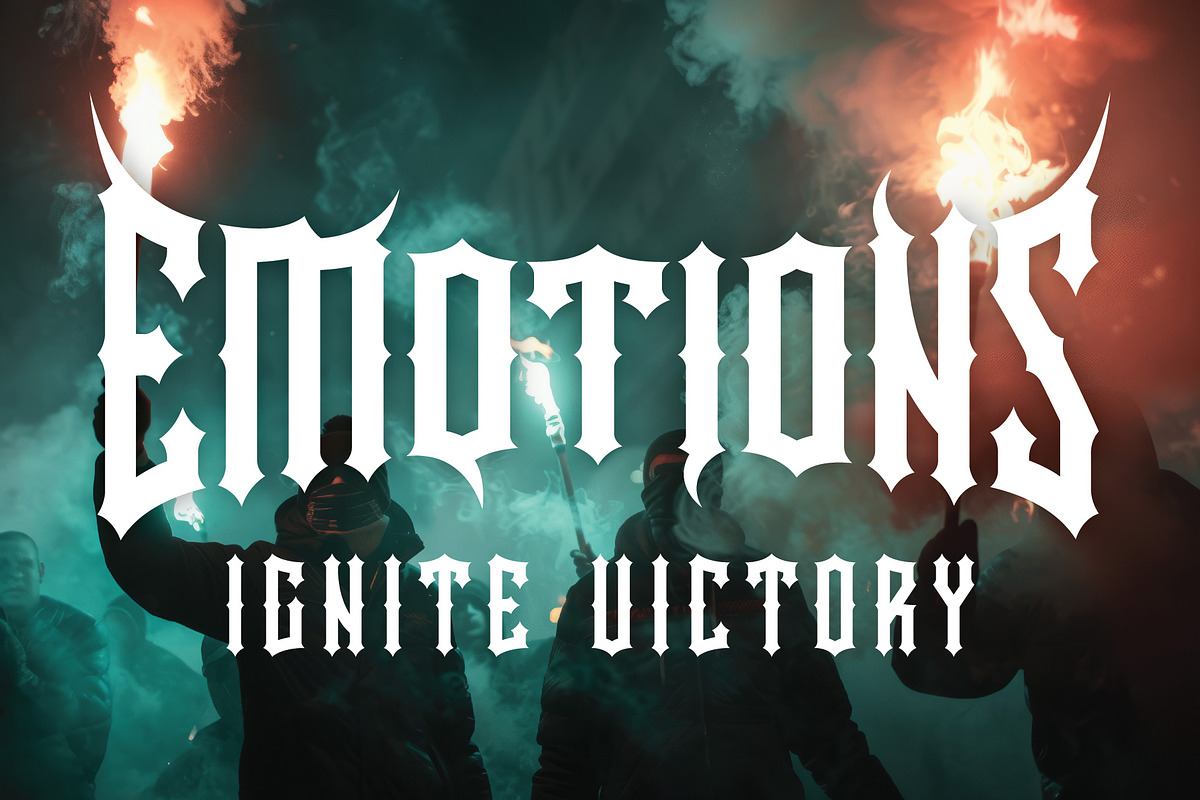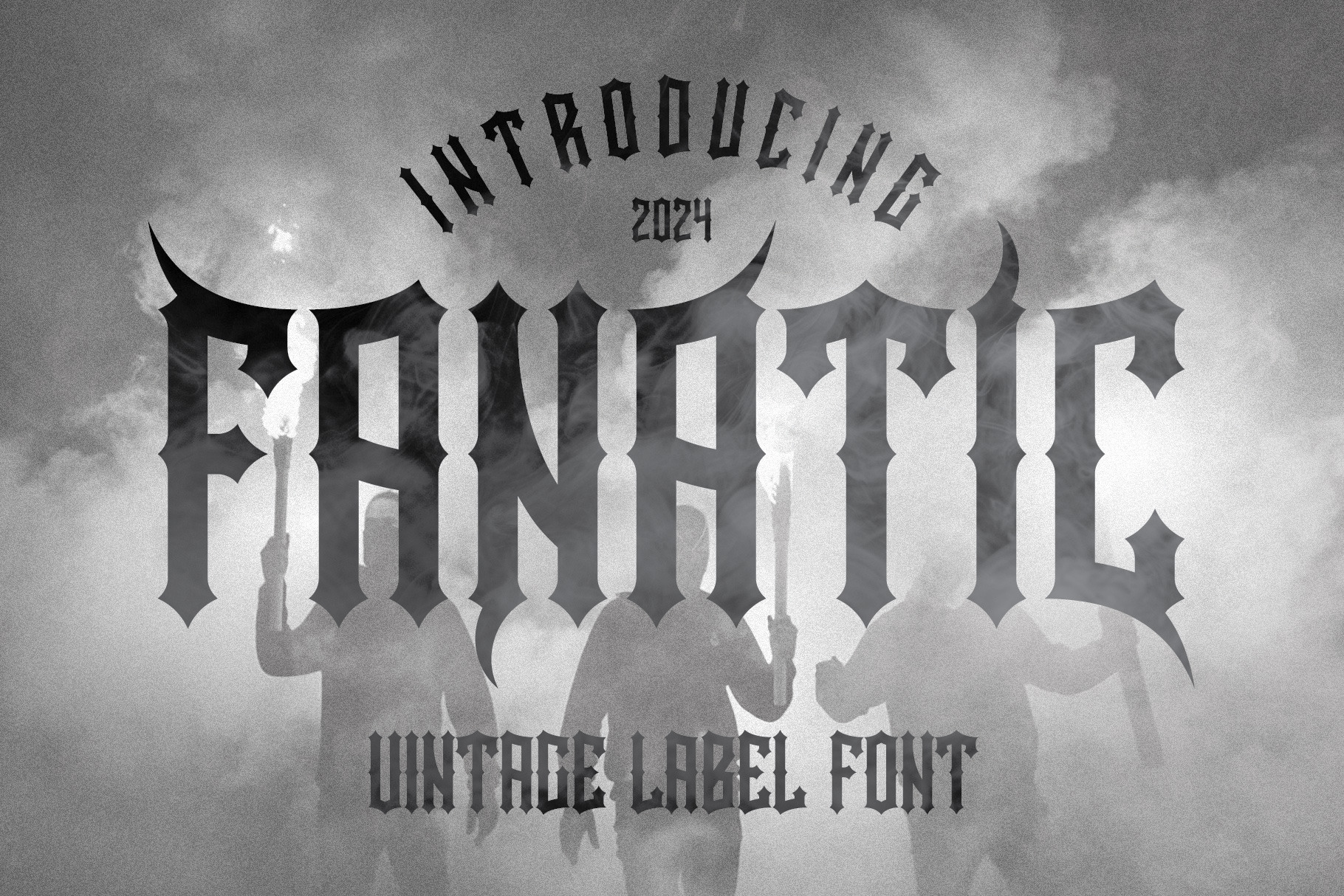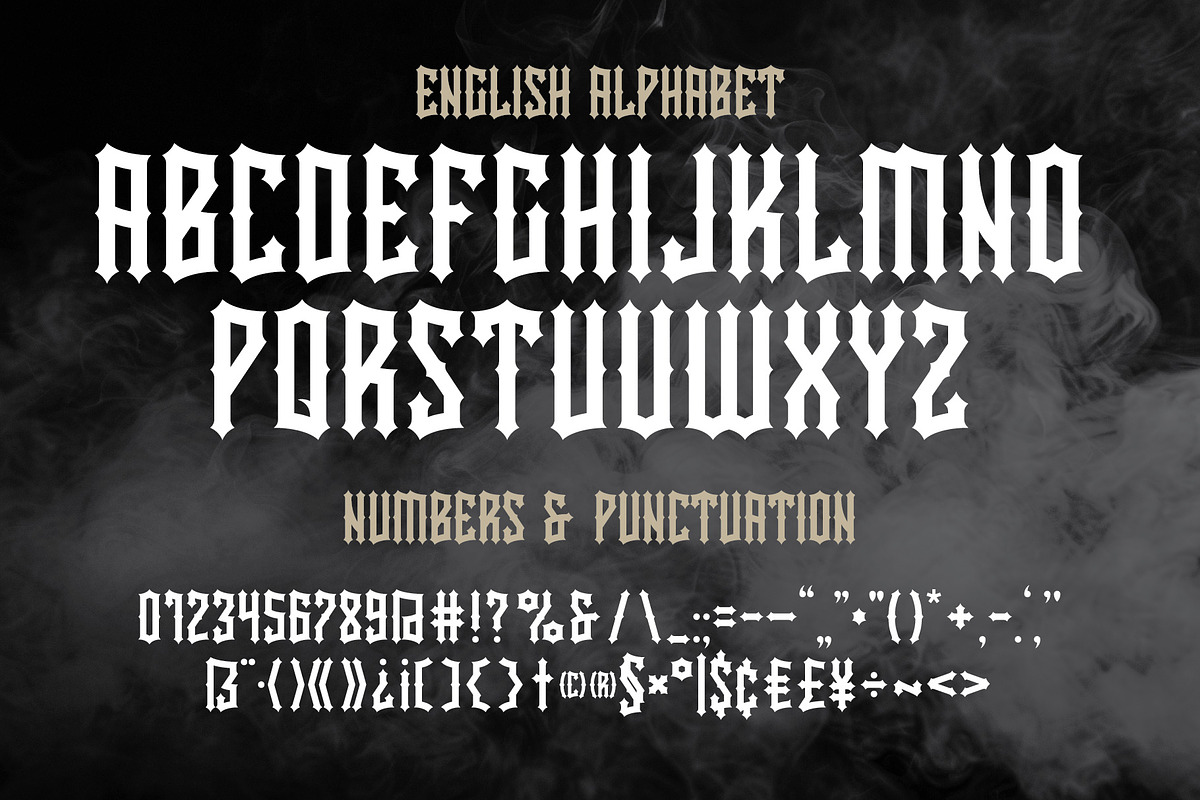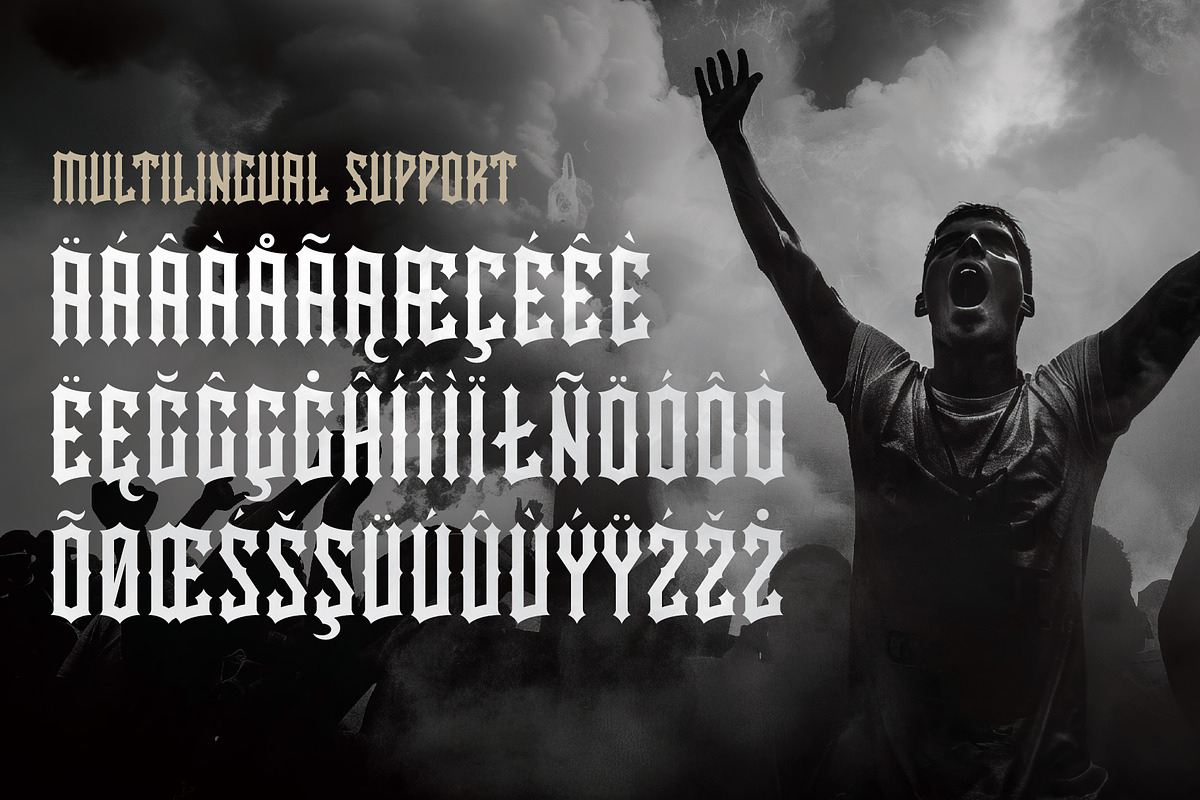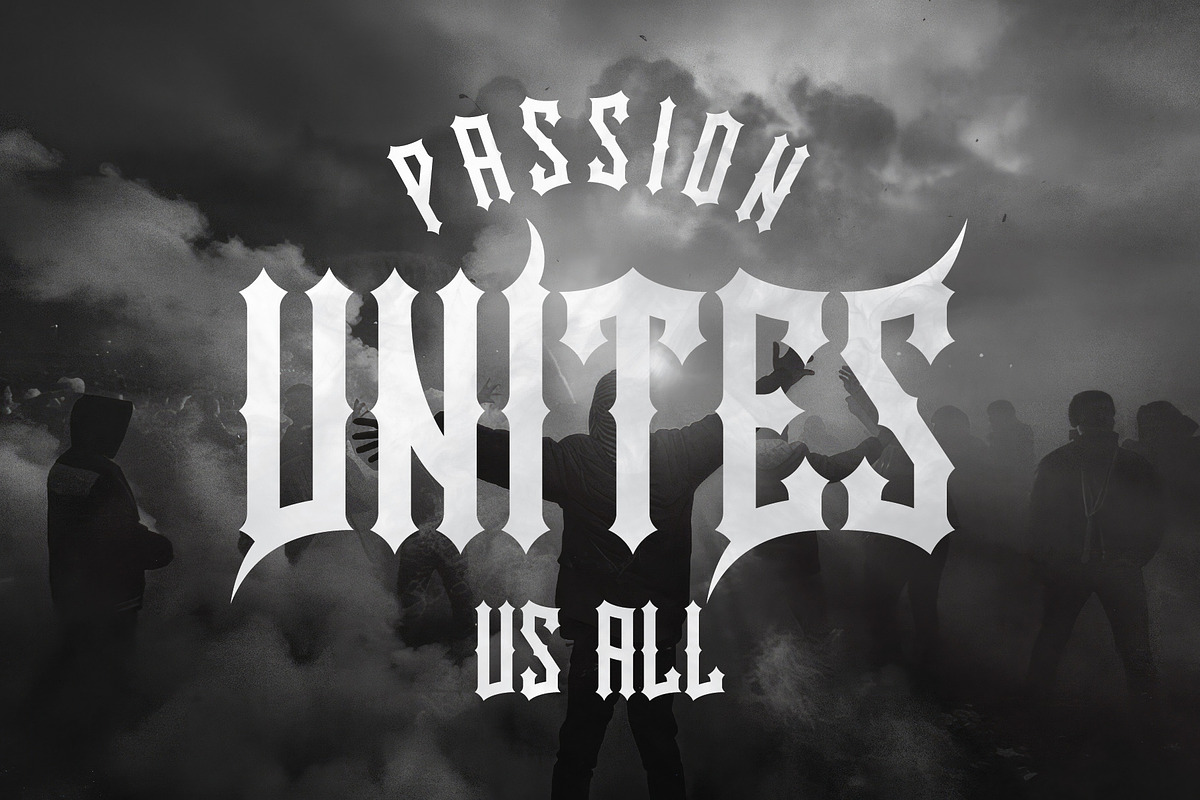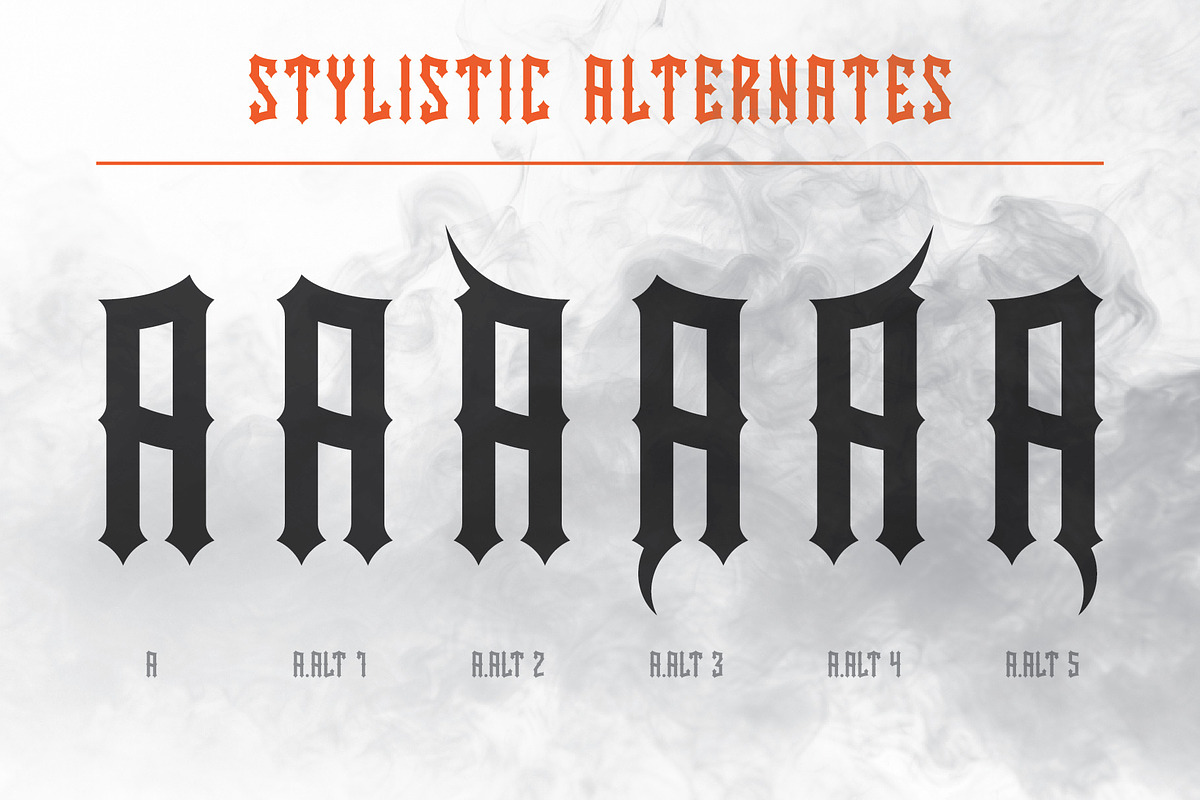
Fanatic - Retro Label Font
Unique, blackletter, vintage, retro, sharp, monogram & label serif font. Comes with multilingual support & 5 alternate characters for every alphabet character - great for your new logo, monogram or branding project.
- 5 alternates for every alphabet character
- Great for retro or vintage style branding projects